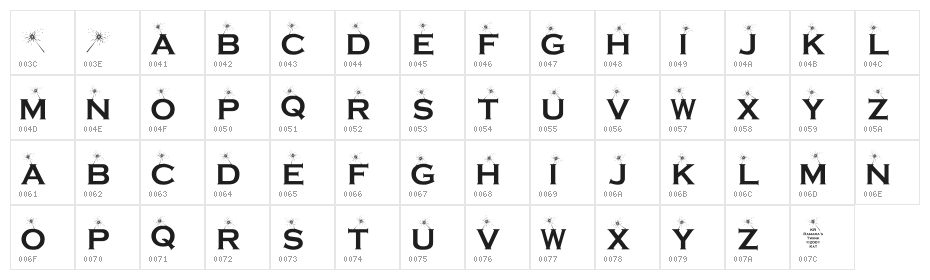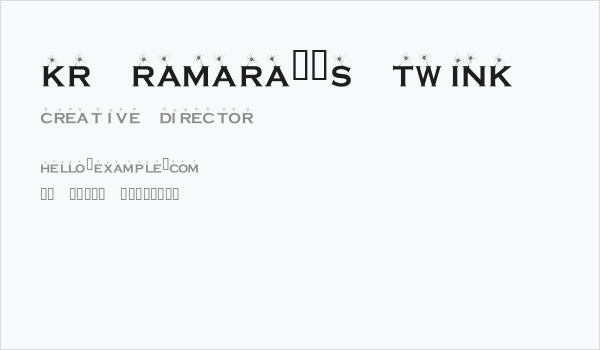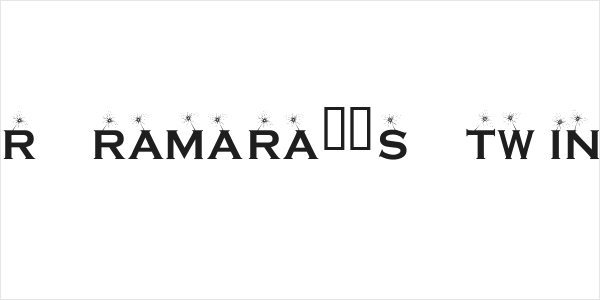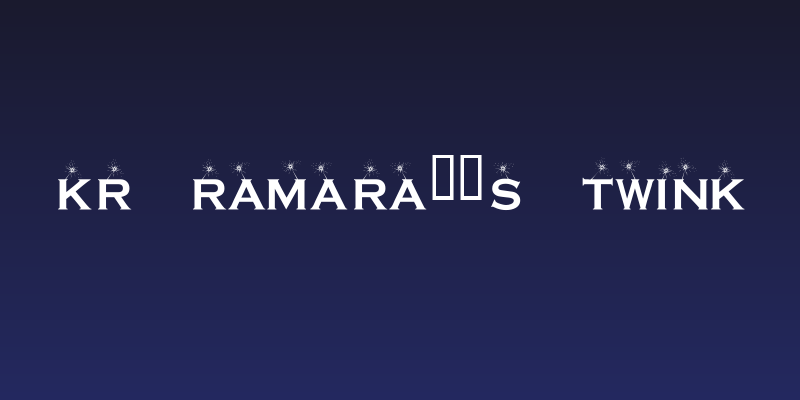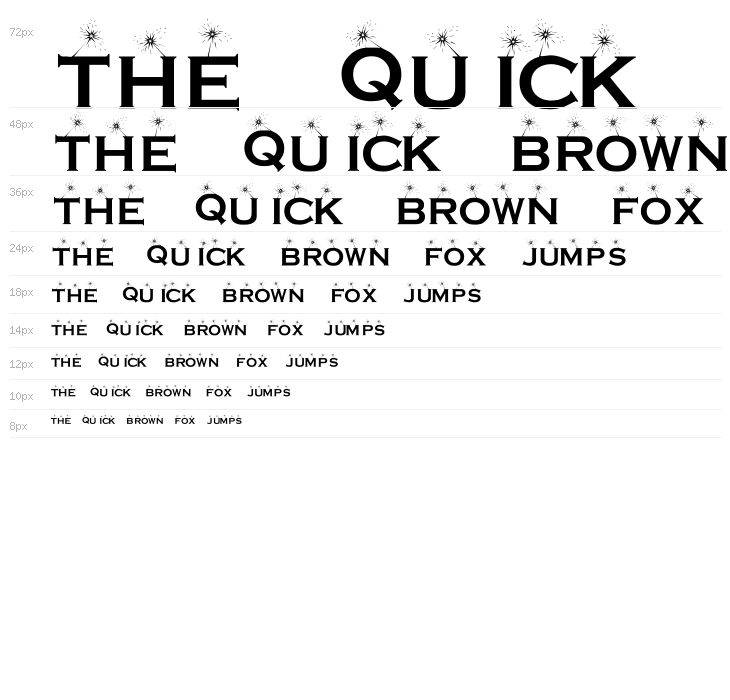
KR Ramara's Twink Font
KR Ramara's Twink Description
This font features a playful and decorative style, characterized by star-like embellishments that appear to twinkle above each character. The letters are bold and have a strong presence, making them ideal for attention-grabbing designs. The overall design is whimsical, with a touch of elegance due to the serif elements. The consistent use of decorative stars adds a unique flair, making it suitable for festive or celebratory themes.
| Proposed Projects | Ideal for holiday cards, festive invitations, children's book covers, and playful branding projects. |